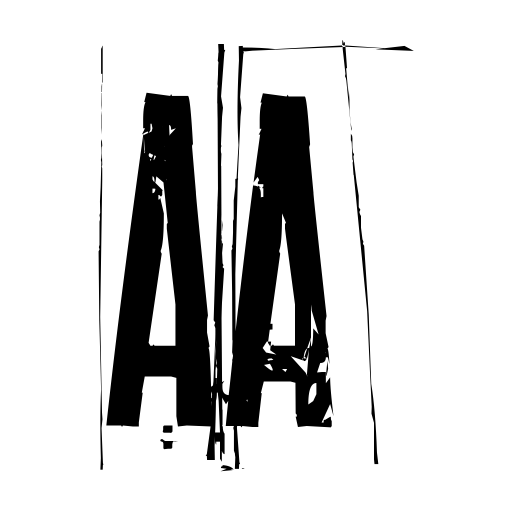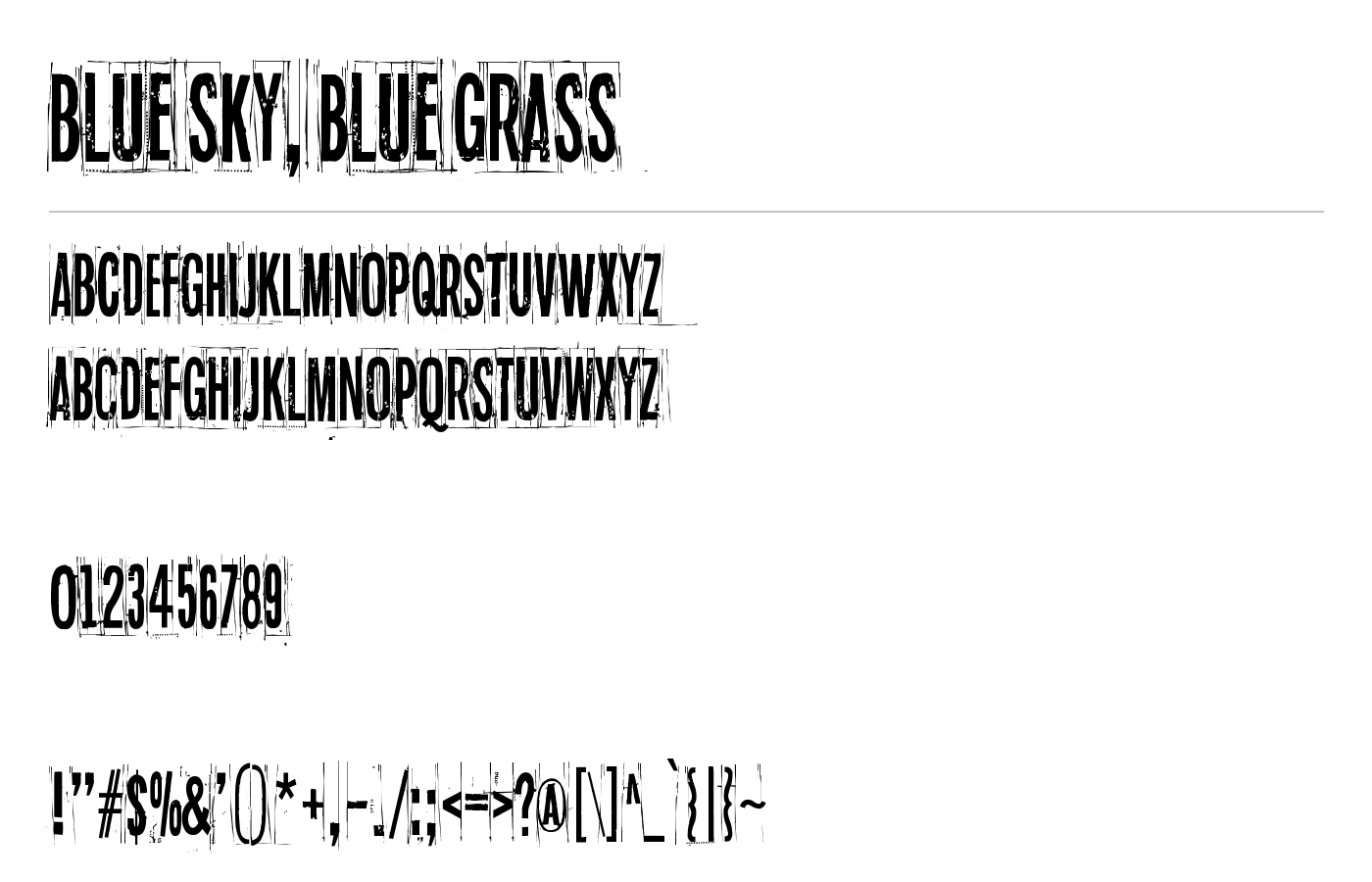
Blue Sky, Blue Grass is a bold, condensed sans-serif font with a distressed, grunge texture that gives it a raw and edgy personality. Its tall, narrow letterforms and high contrast between thick and thin strokes create a striking impact, perfect for designs seeking an urban, rebellious, or vintage-industrial vibe. This font works great for headlines, posters, and branding that aims to grab attention with a rugged, expressive style.
Blue sky, blue grass Font
About Blue sky, blue grass Font